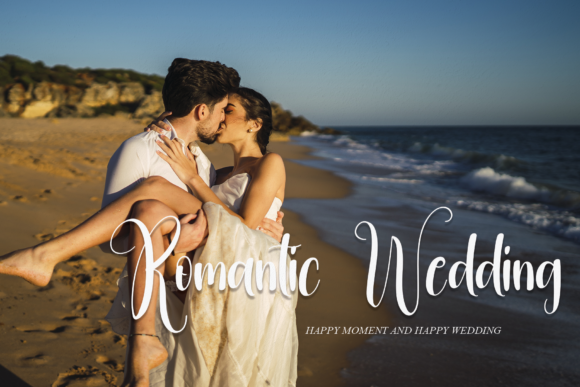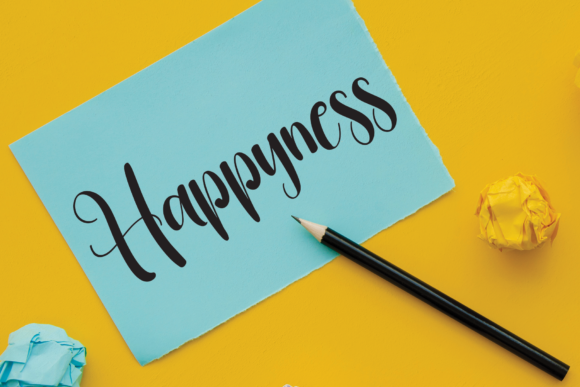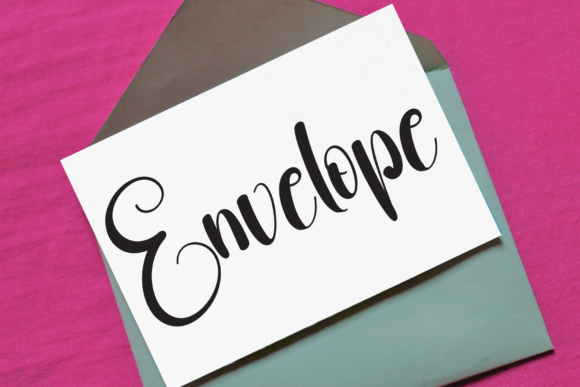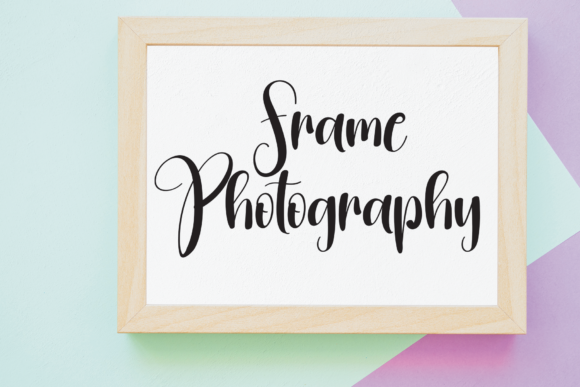
Introducing Christmas December Font: Elevate Your Designs with Luxurious Handwritten Elegance
Are you looking for a font that exudes luxury and sophistication? Look no further than Christmas December Font, a beautifully flowing handwritten font that is sure to elevate your designs to the next level. With its elegant and refined aesthetic, this font is perfect for designers and crafters who want to create outstanding visual content that stands out from the crowd.
What Makes Christmas December Font So Special?
Christmas December Font is a luxurious and versatile font that can be used for a wide range of design projects. Its beautiful, flowing script is perfect for creating eye-catching wall displays, wedding invitations, social media post logos, advertisements, product packaging, product designs, labels, photography, watermarks, invitations, and stationery.
Whether you’re a designer looking to create stunning visual content for your clients or a crafter looking to add a personal touch to your DIY projects, Christmas December Font is the perfect choice. Its elegant and refined aesthetic is sure to impress, and its versatility makes it easy to use for a wide range of design projects.
Key Features of Christmas December Font
- Luxurious and elegant design: Christmas December Font features a beautifully flowing script that is both luxurious and elegant.
- Handwritten aesthetic: The font’s handwritten aesthetic gives it a personal and unique touch that is perfect for creating standout designs.
- Versatile: Christmas December Font can be used for a wide range of design projects, from wall displays and wedding invitations to social media post logos and product packaging.
- Easily readable: Despite its elegant and refined aesthetic, Christmas December Font is still easily readable, making it perfect for use in a wide range of design projects.
Uses for Christmas December Font
Christmas December Font is a versatile font that can be used for a wide range of design projects, including:
- Wall displays: Create stunning wall displays for your home or office with Christmas December Font.
- Wedding invitations: Make your wedding invitations truly special with the elegant and refined aesthetic of Christmas December Font.
- Social media post logos: Elevate your social media presence with eye-catching logos created using Christmas December Font.
- Advertisements: Create standout advertisements that grab attention with Christmas December Font.
- Product packaging: Add a touch of luxury to your product packaging with Christmas December Font.
- Product designs: Create stunning product designs that showcase your brand’s personality with Christmas December Font.
- Labels: Create elegant and refined labels for your products or DIY projects with Christmas December Font.
- Photography: Add a touch of sophistication to your photography with Christmas December Font, perfect for use in watermarks or photo captions.
- Invitations: Create stunning invitations for any occasion with Christmas December Font.
- Stationery: Elevate your stationery with the elegant and refined aesthetic of Christmas December Font.
Why Choose Christmas December Font?
There are many fonts to choose from, but Christmas December Font stands out from the crowd for several reasons:
- Unique and elegant design: Christmas December Font features a unique and elegant design that is sure to impress.
- High-quality: The font is of high-quality, making it perfect for use in professional design projects.
- Versatile: Christmas December Font is versatile and can be used for a wide range of design projects.
- Easily readable: Despite its elegant and refined aesthetic, Christmas December Font is still easily readable.
If you’re looking for a font that exudes luxury and sophistication, look no further than Christmas December Font. With its elegant and refined aesthetic, versatile uses, and high-quality design, this font is perfect for designers and crafters who want to create outstanding visual content. Whether you’re creating wall displays, wedding invitations, social media post logos, or product packaging, Christmas December Font is the perfect choice.